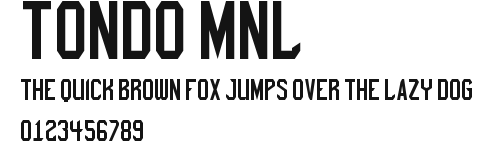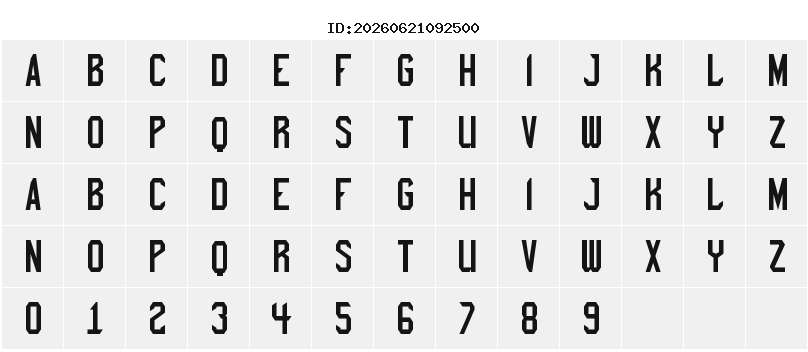
• Font Name: Tondo MNL
• Full Font Name: Tondo MNL
• Designer: Brylle Conrad Co
• Manufacturer: Conragon Fonts
About Tondo MNL.ttf
Tondo MNL.ttf is a modern, elegant sans-serif font designed for ultimate readability and visual harmony. Perfect for branding, headlines, web design, and print materials.